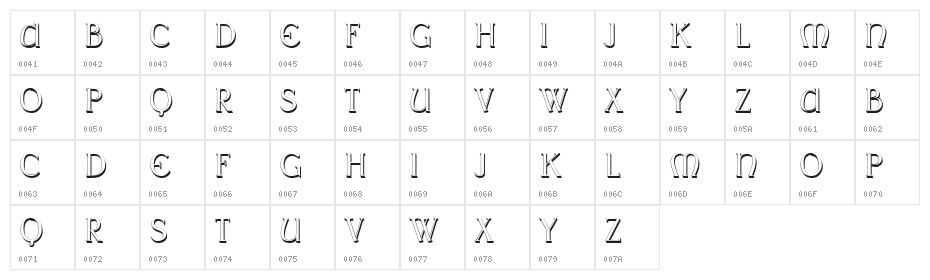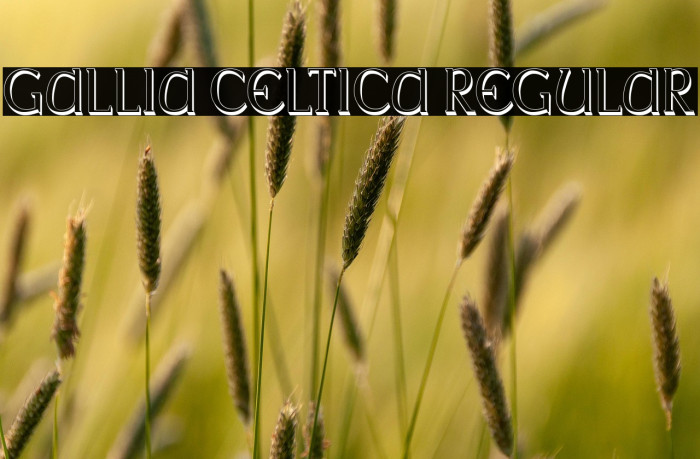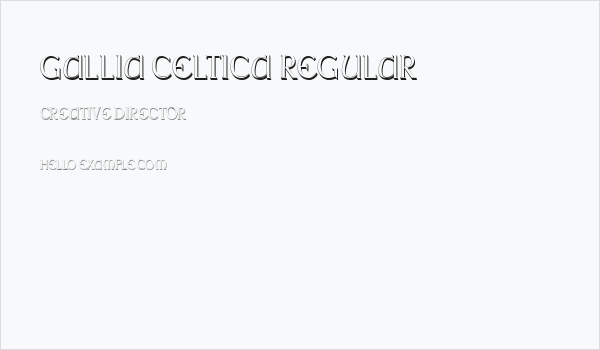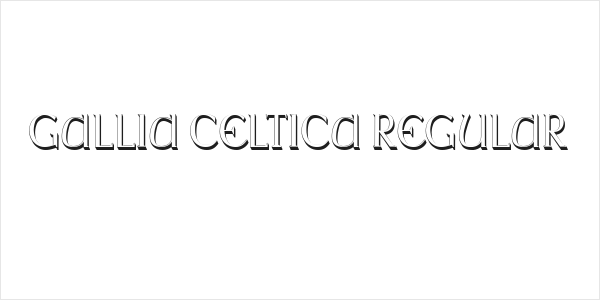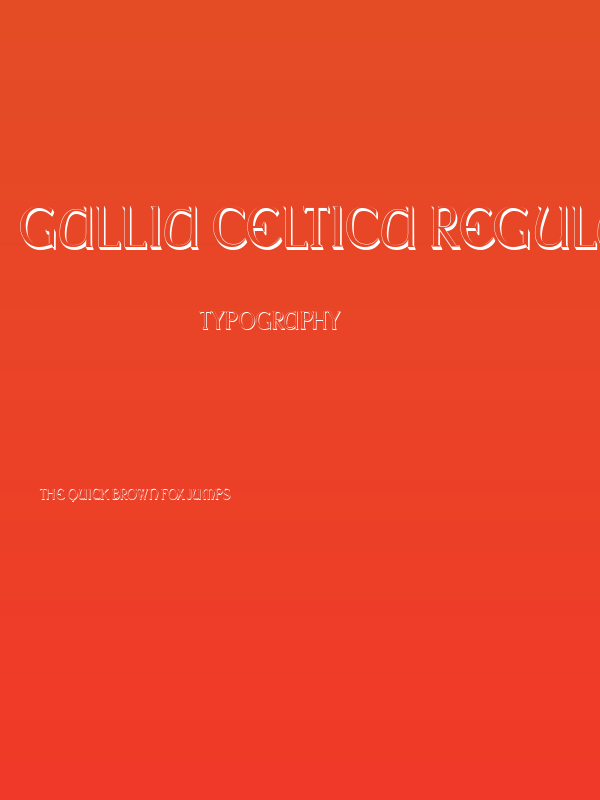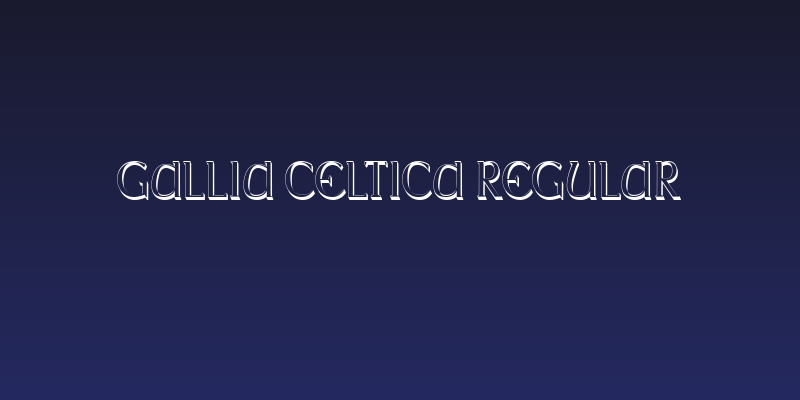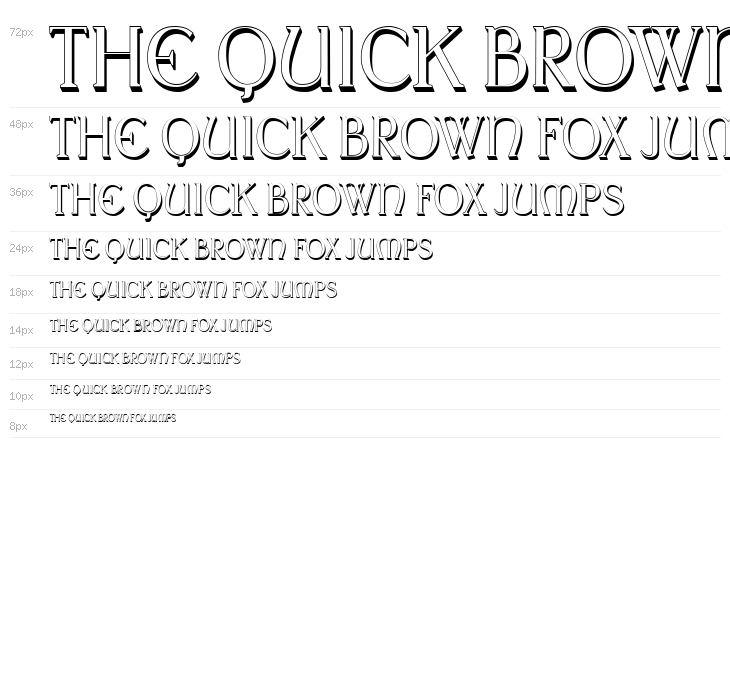
Gallia Celtica Regular Font
Gallia Celtica Regular Description
This font showcases a unique blend of classical and decorative elements, characterized by its bold and striking appearance. The letters feature a distinct shadow effect, giving them a three-dimensional look. The serifs are pronounced, adding a touch of elegance and sophistication. The overall design is reminiscent of ancient scripts, yet it maintains a modern flair. The uppercase letters are particularly eye-catching, with their intricate detailing and strong presence. This font is ideal for creating impactful headlines or titles that demand attention.